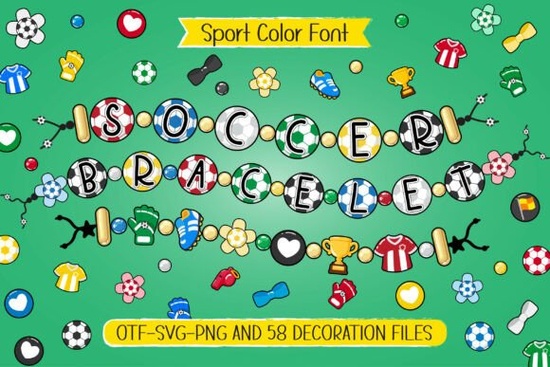
If you're looking for a playful, sporty font that stands out on crafts, apparel, or party decor especially for soccer-themed projects the Soccer Bracelet Font is a thoughtful, well-designed choice. It’s not just another bold sans-serif; it’s a set built around tactile charm and joyful color, with each letter shaped like a beaded bracelet and each bead inspired by soccer gear: cleats, balls, nets, even goalposts. That attention to detail makes it especially useful for makers who value both personality and practicality.
What makes this font different from other sports fonts?
Most sports fonts lean heavily into sharp angles, aggressive lines, or retro block styles. Soccer Bracelet takes a friendlier, more handmade approach. Instead of shouting “GOAL!”, it smiles while tying its laces. The collection includes six colorful letter fonts, each with consistent spacing and smooth curves, plus one decorative font for headlines or accents like stitching or zigzag borders that echo woven bracelets. All seven fonts come in OpenType format, so they work reliably in Cricut Design Space, Silhouette Studio, Adobe Illustrator, and Canva (with upload support).
The real strength lies in how the fonts pair with the included assets: 58 matching clipart elements. Think mini soccer balls with string loops, striped wristbands, confetti bursts shaped like jersey numbers, and even tiny trophy charms all designed in the same bright, saturated palette. That cohesion saves time. You won’t need to hunt for coordinating graphics or tweak colors to match. Everything works together straight out of the download folder.
Who benefits most from this set?
DIY crafters love it for friendship bracelet–inspired wall art, vinyl-cut T-shirts for youth leagues, or laminated name tags for soccer camp. The bold shapes cut cleanly on vinyl and hold up well when resized even down to 0.5 inches tall on iron-on patches.
Print-on-demand sellers find it versatile for niche markets: birthday shirts (“Team [Name] MVP”), motivational quotes for young athletes (“Practice Like a Pro”), or even fun teacher appreciation designs (“My Coach is a Keeper!”). Because the colors are vibrant but not neon-overload, it translates well across fabric, mugs, and stickers without needing heavy color correction.
Small businesses running local soccer academies or after-school programs use it for digital flyers, Instagram story templates, and printable reward certificates. The decorative font adds polish to banners without requiring custom illustration work.
How does it compare to similar fonts on Creative Fabrica?
It shares some visual energy with the Channel the Flannel font, but where Flannel leans into cozy, woven textures and earthy tones, Soccer Bracelet is brighter, bouncier, and more explicitly sport-oriented. If your project needs energy and clarity not warmth and nostalgia this is the better fit.
You’ll also notice it avoids the overly cartoonish look of many kids’ sports fonts. The proportions are balanced, the kerning is clean, and lowercase letters have distinct, readable forms (not just mini-caps). That helps it age well useful if you’re designing for U10 teams and high school spirit wear.
What can you actually make with it right now?
- Custom vinyl decals for water bottles or backpacks
- Digital party invites with animated “Goal!” banners
- Scrapbook pages documenting tournament wins or team photos
- Sticker sheets for planners or reward charts
- Sublimation-ready designs for warm-up hoodies or socks
A quick checklist before you download
- ✅ You need a sporty-but-friendly font not aggressive, not babyish
- ✅ You’ll use it alongside matching icons (no extra design time needed)
If those match your needs, Soccer Bracelet Font is ready to drop into your next project no tweaking, no hunting for extras, just clear, cheerful, soccer-smart design.